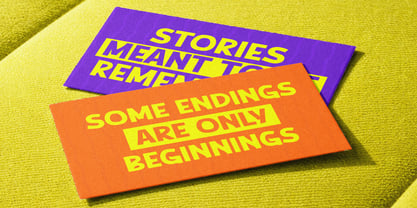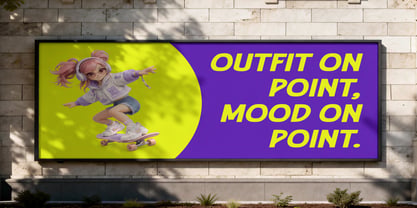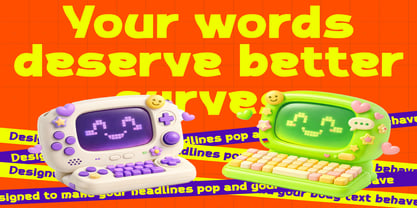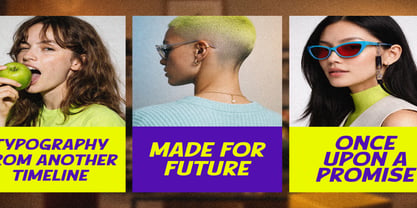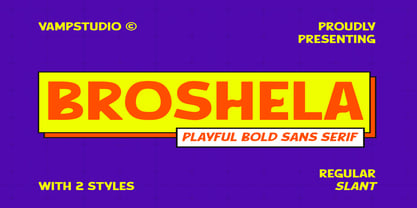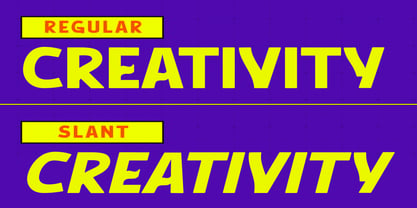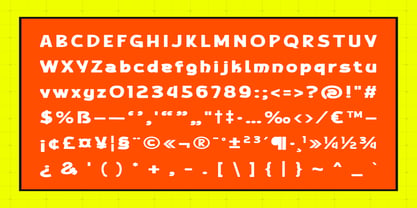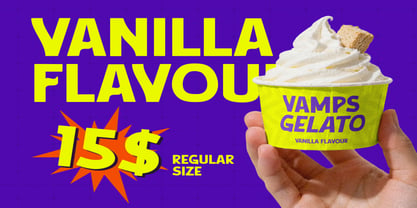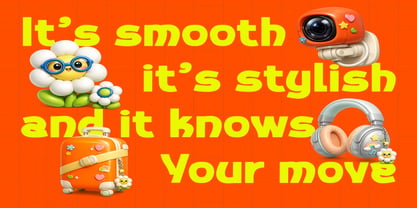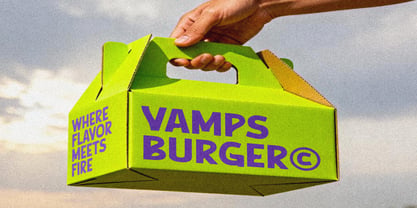
Broshela
The Broshela Font Family was designed by Irfan syah and published by Vampstudio. Broshela contains 2 styles and family package options. More about this family
Broshela is a bold modern sans serif display font designed to create strong visual impact. With its thick letterforms, clean structure, and contemporary style, Broshela brings a powerful and confident look to any design project.
This font is perfect for bold headlines, posters, branding, packaging, and editorial layouts. Its strong shapes and balanced proportions make it highly readable while maintaining a distinctive personality that stands out in both print and digital designs.
Inspired by modern display typography and bold graphic design trends, Broshela is ideal for creatives who want to build eye-catching visuals and strong brand identities.
Whether you're working on posters, logos, packaging, or social media graphics, Broshela helps your typography make a statement.
Font Features
• Uppercase & Lowercase Characters
• Numbers & Punctuation
• Bold Sans Serif Style
• Clean Geometric Letterforms
• Multilingual Support
• Perfect for Display Typography